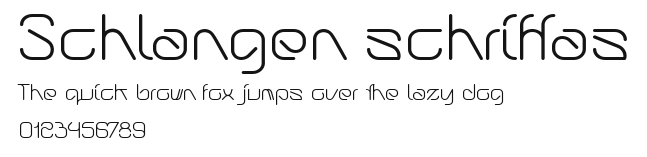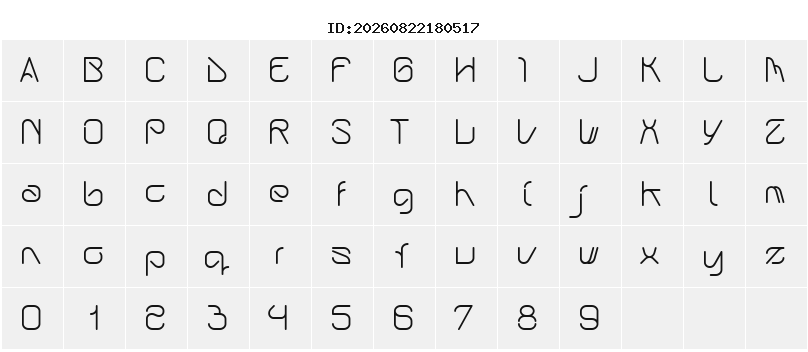
Schlangen schriftas Preview
• Font Name: Schlangen schriftas
• Designer: Gabrieliusmackevičius
About Schlangen schriftas.ttf
Schlangen schriftas.ttf is a modern, elegant sans-serif font designed for ultimate readability and visual harmony. Perfect for branding, headlines, web design, and print materials.